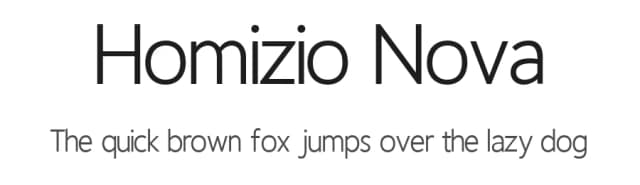
About Homizio Font
Homizio is a sans-serif font designed by Álvaro Thomáz. It includes 246 glyphs, a thin weight, TTF (TrueType) format, and 216 languages. Homizio is free to download; check the license details on this page before commercial use. Sans-serif fonts like Homizio work best for clean body text, user interfaces, branding, and modern layouts.
Homizio Font is a versatile sans-serif font that works for both headings and body text. Pair it with a contrasting serif or slab serif font to add visual interest and a clear distinction between titles and body copy.
Homizio Font
Homizio Font is a sans serif typeface by Álvaro Thomáz, ideal for logos, invitations, branding, and creative projects.